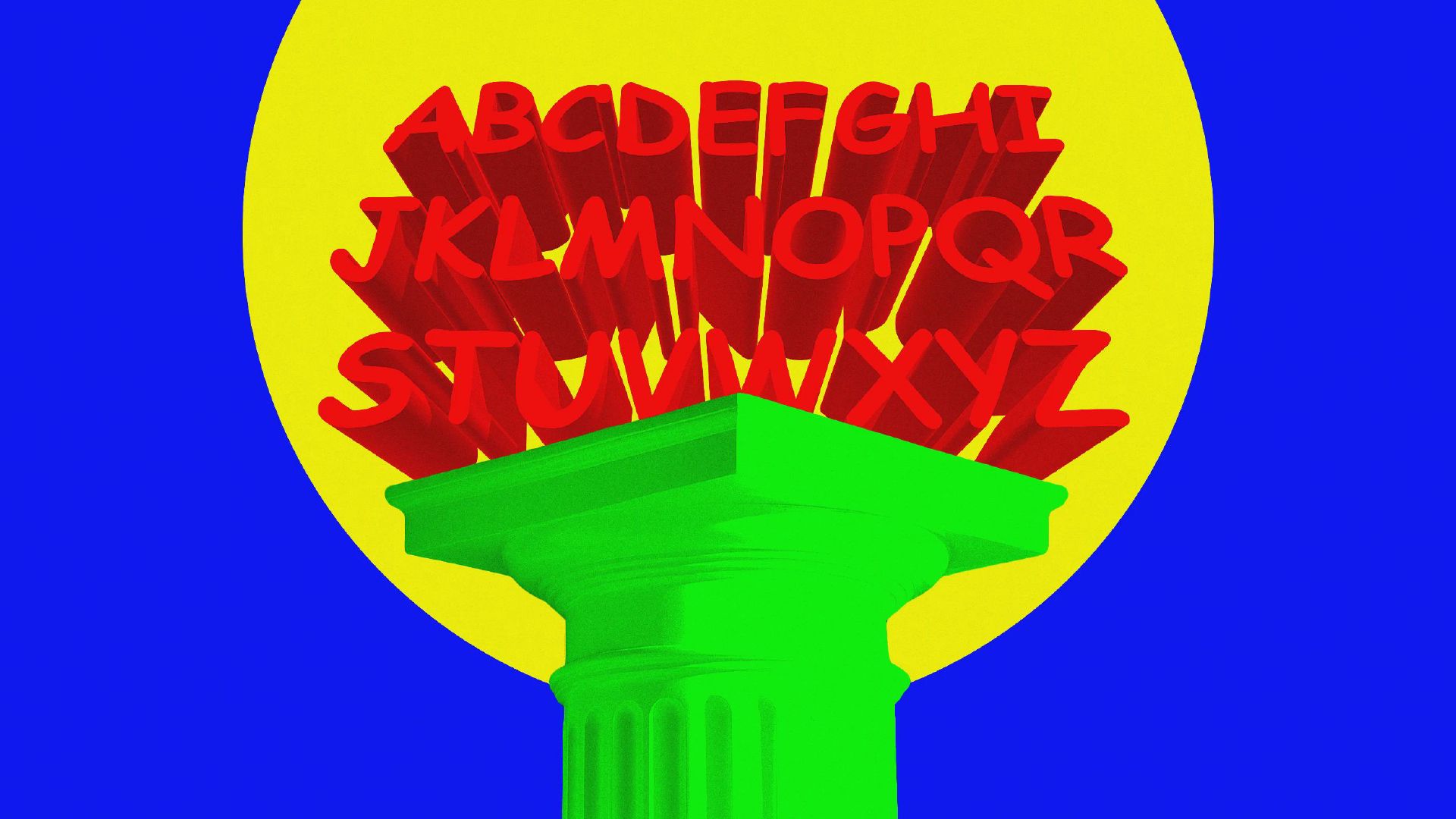
How Comic Sans became the Crocs of fonts
After 30 years of abuse, Comic Sans is ready for its redemption.
How Comic Sans became the Crocs of fonts
After 30 years of abuse, Comic Sans is ready for its redemption.